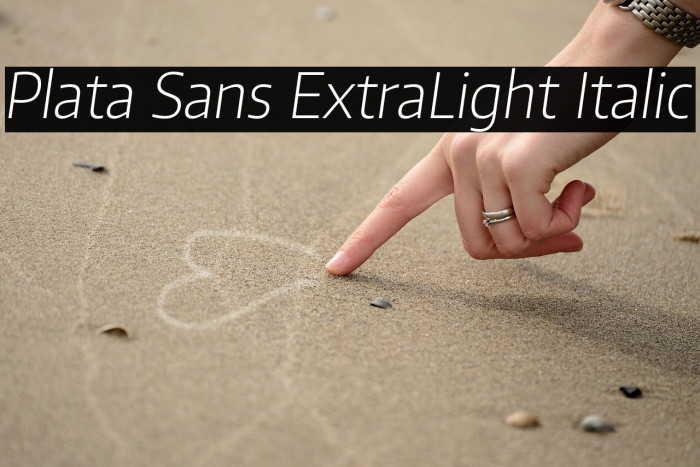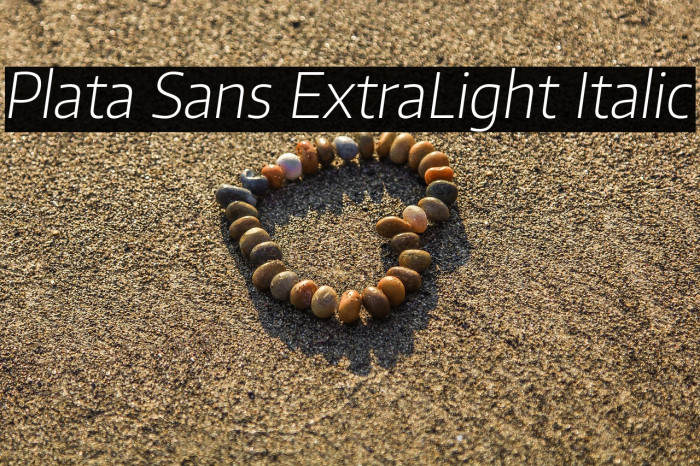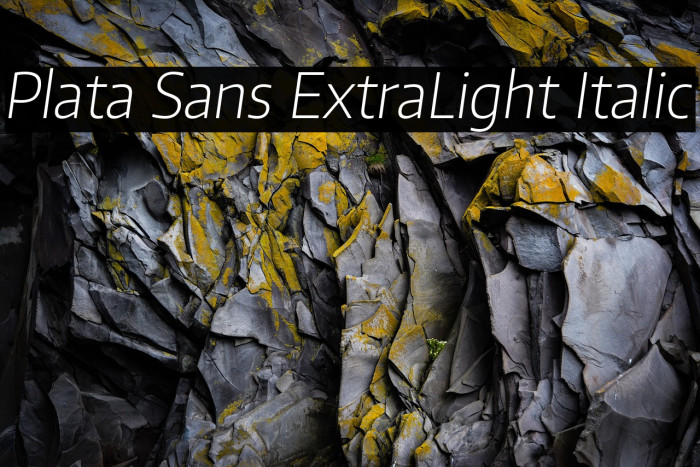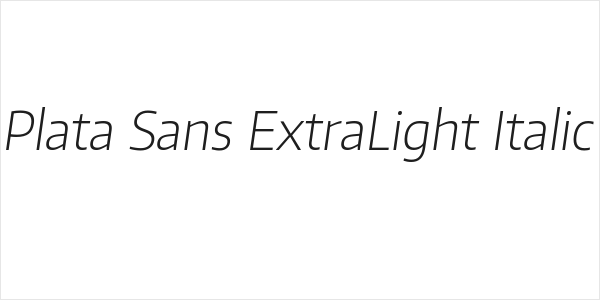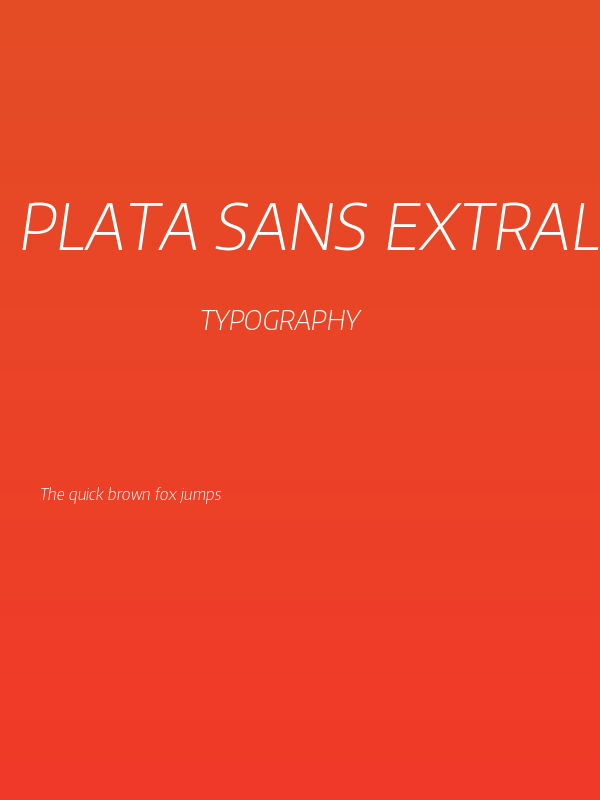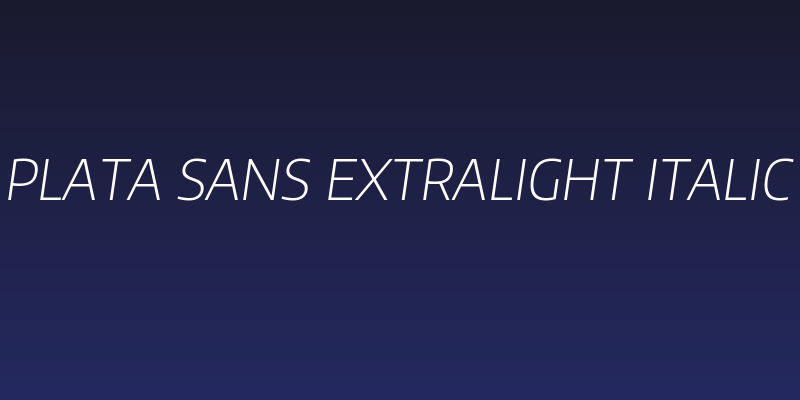
Plata Sans ExtraLight Italic Font
Plata Sans ExtraLight Italic Description
This font features a sleek and modern design with a clean, sans-serif style. The characters are slightly elongated, giving them an elegant and sophisticated appearance. The strokes are thin and consistent, contributing to a light and airy feel. The italic style adds a subtle slant to the characters, enhancing the dynamic and fluid nature of the text. The overall design is minimalistic, making it versatile for various applications. The font maintains excellent legibility, even at smaller sizes, due to its well-proportioned letterforms and balanced spacing.
| Proposed Projects | Ideal for modern branding, minimalist websites, elegant invitations, and stylish editorial layouts. |